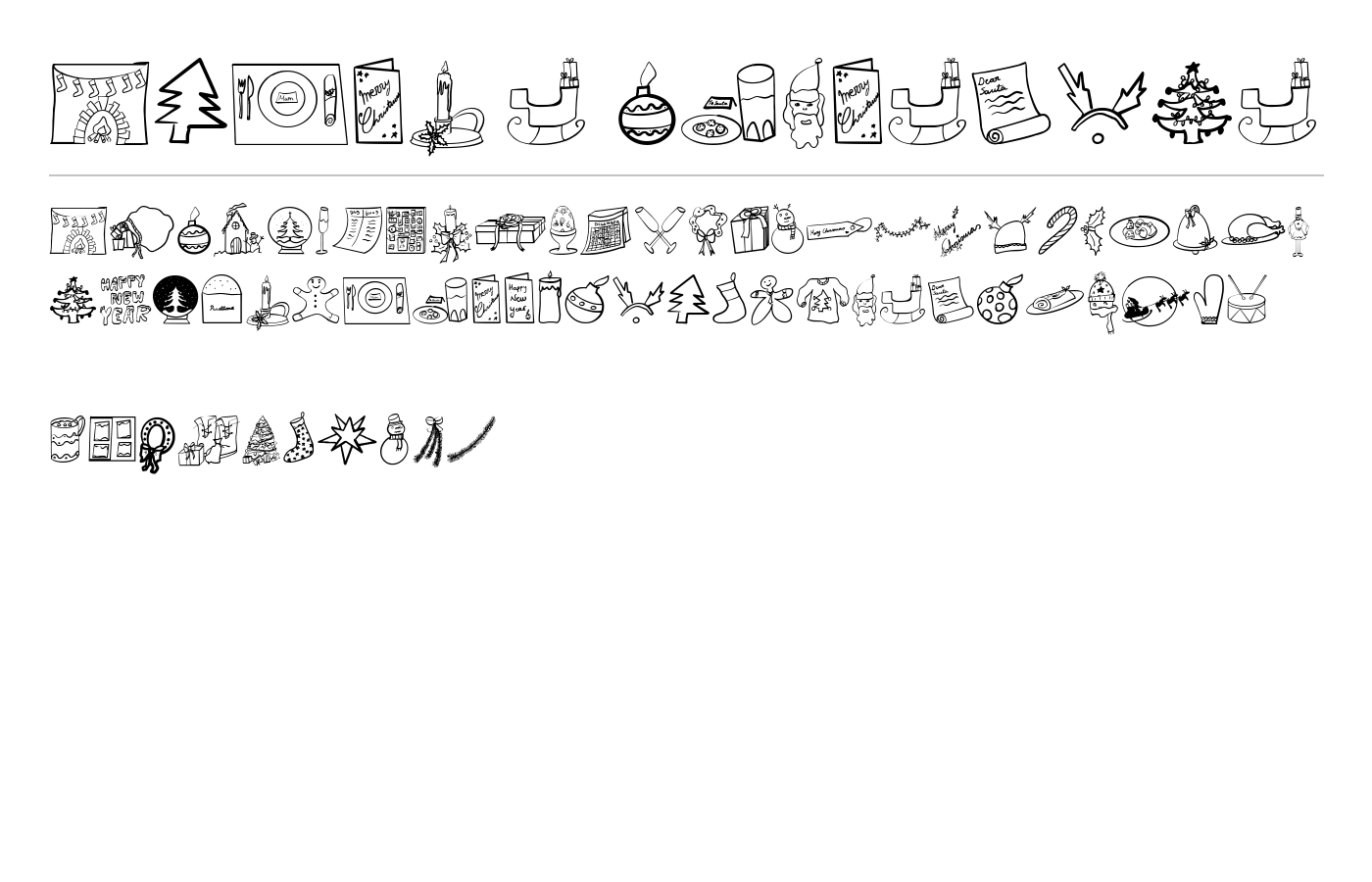
Angie's Christmas Font is a playful and whimsical dingbat-style font featuring charming hand-drawn holiday icons. Perfect for adding a cozy, festive touch, it includes a variety of Christmas-themed illustrations like stockings, trees, ornaments, and Santa, making it ideal for holiday cards, party invitations, and seasonal branding. Its casual, sketchy style brings warmth and joy, helping designs feel personal and cheerful.
Angie's Christmas Font
About Angie's Christmas Font